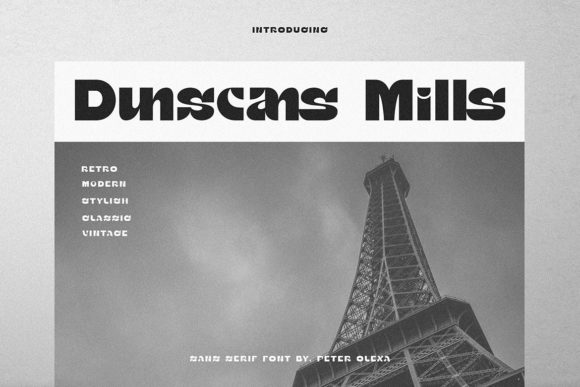
Unleash Your Creativity with Dunscans Mills: The Retro Display Font That Transforms Your Designs
In a world saturated with bland and monotonous fonts, Dunscans Mills emerges as a breath of fresh air, a font that ignites creativity and elevates your designs to new heights. This captivating display font, meticulously crafted by JumboDesign, embodies the essence of retro charm, injecting a touch of nostalgia into your digital creations.
Experience the allure of Dunscans Mills, a font that dances between the past and present, seamlessly blending classic aesthetics with a modern twist. Its bold strokes, reminiscent of vintage posters and signage, evoke a sense of authenticity and timeless appeal. With its PUA encoding, you'll have effortless access to a treasure trove of glyphs and swashes, empowering you to unleash your imagination and create designs that leave a lasting impression.
Fall head over heels for Dunscans Mills' incredibly versatile style. Its adaptability shines in diverse applications, from crafting eye-catching logos and branding materials to designing stunning social media graphics and website headers. Whether you're a seasoned designer or just starting your creative journey, Dunscans Mills is your trusted companion, elevating your designs with its innate charm and personality.
Discover the magic of Dunscans Mills today and embark on a typographic adventure like never before. Let your creativity soar as you craft captivating designs that resonate with your audience. From stunning posters and flyers to unforgettable invitations and greeting cards, Dunscans Mills transforms your words into captivating works of art.
Join the ranks of creative visionaries who have embraced Dunscans Mills as their go-to display font. Let your imagination run wild as you create designs that ignite conversations, spark emotions, and leave an indelible mark on the world. Dunscans Mills is more than just a font; it's a gateway to a world of endless creative possibilities.}